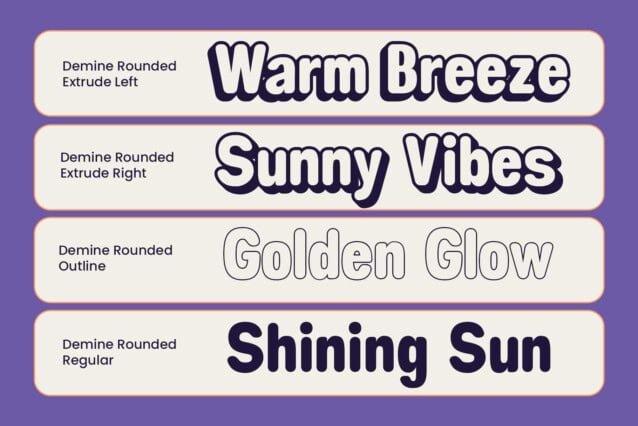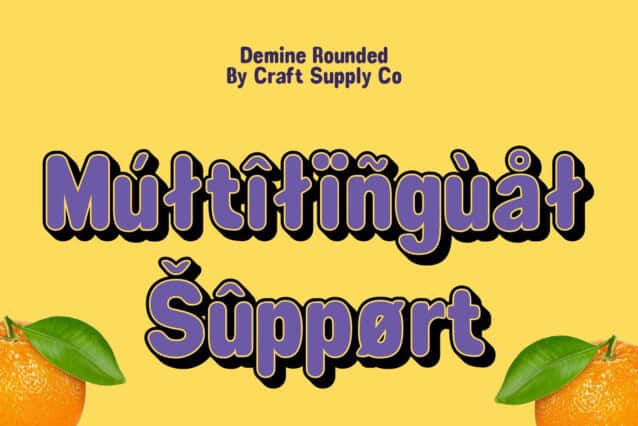
Demine Rounded 3D Font
Demine Rounded 3D Font is a modern sans-serif font designed with a bold and solid structure, ensuring high legibility and visual impact. Its sturdy letterforms convey confidence and professionalism, making it an excellent choice for branding, headlines, and digital interfaces. The font’s clean and modern aesthetic enhances readability while maintaining a sleek and contemporary feel.